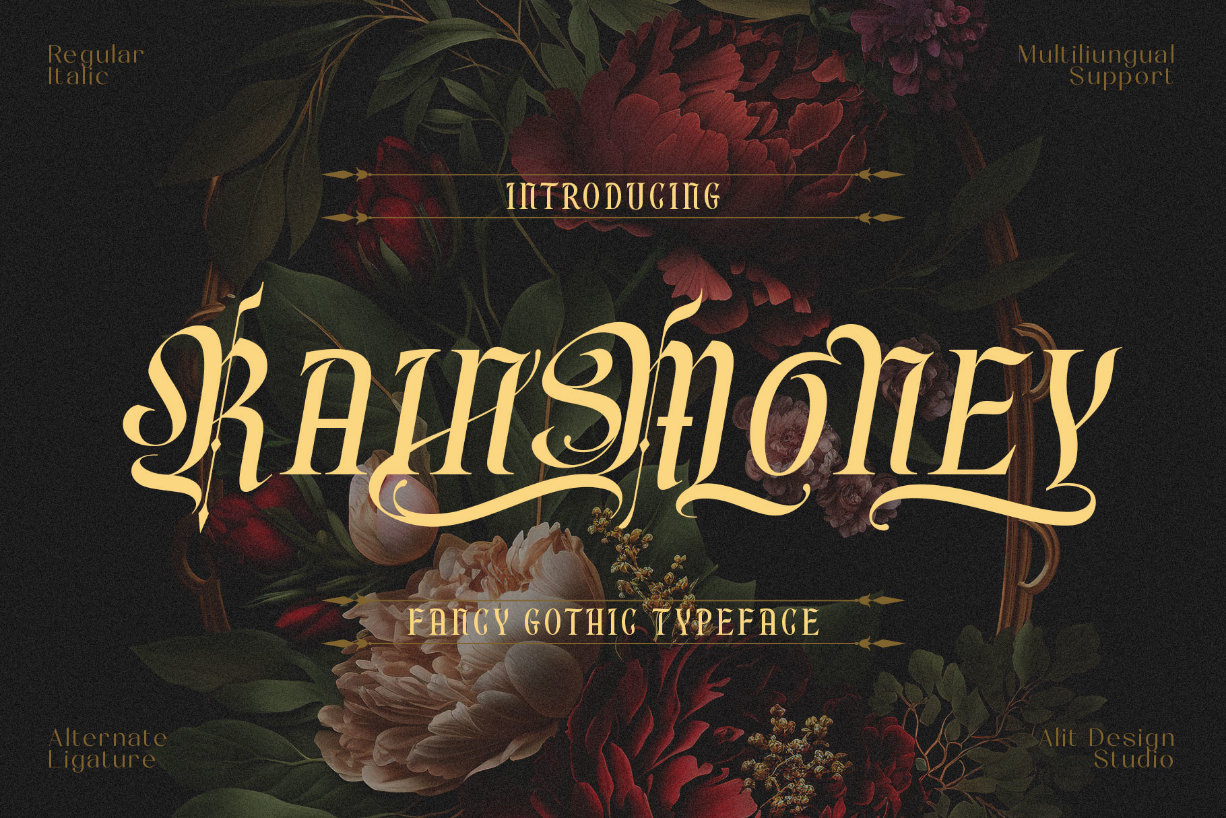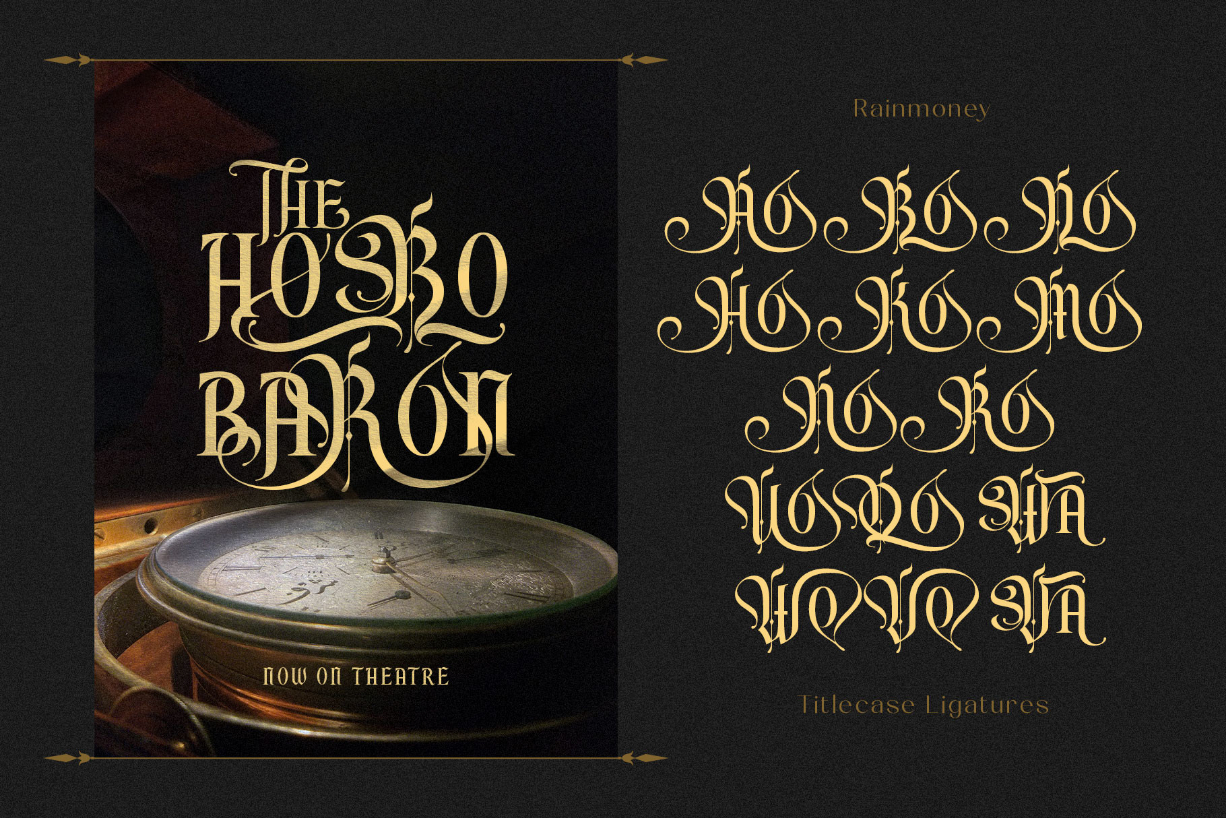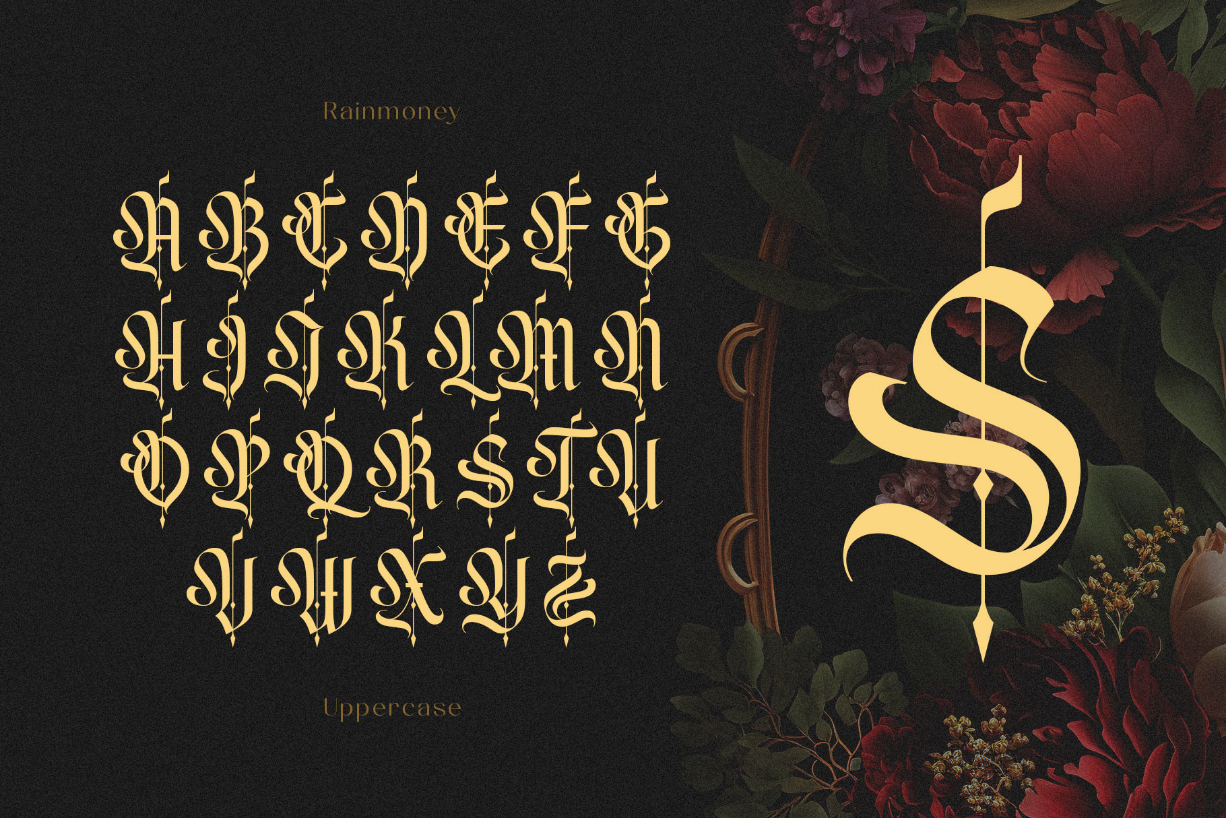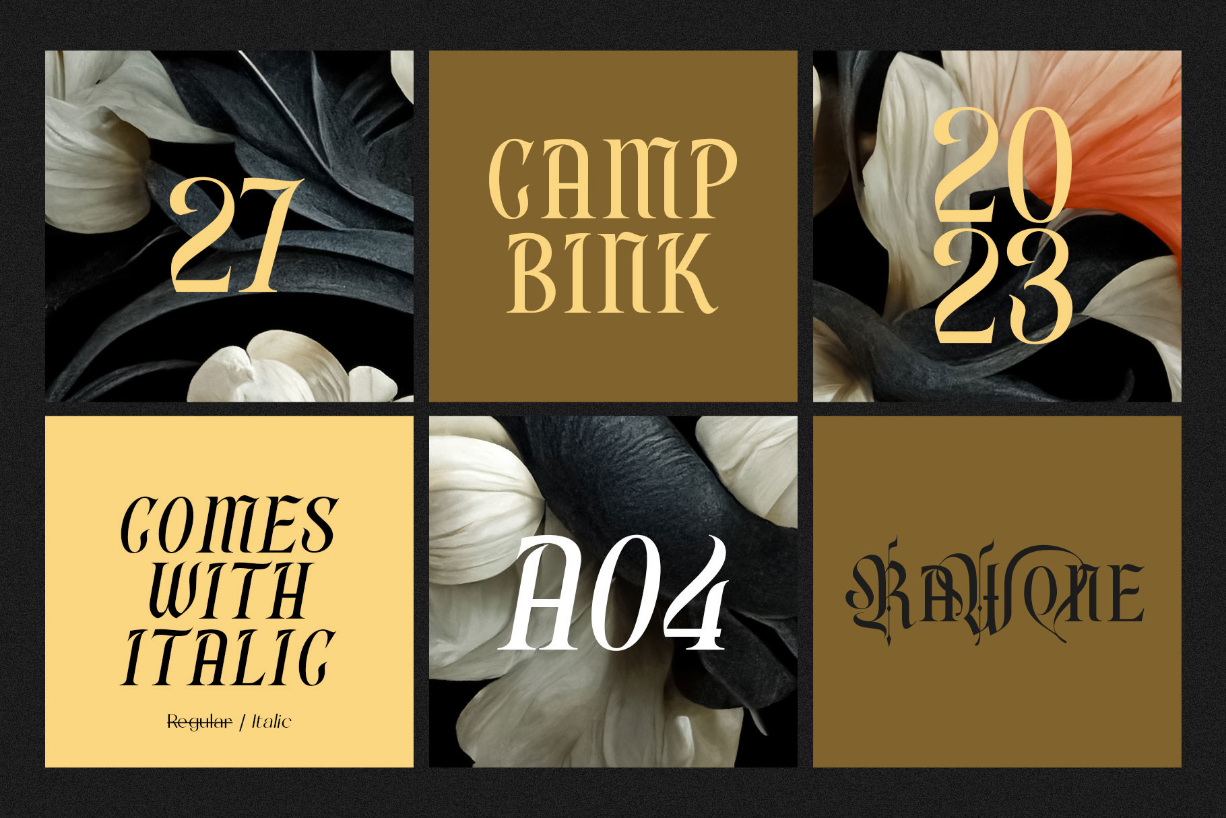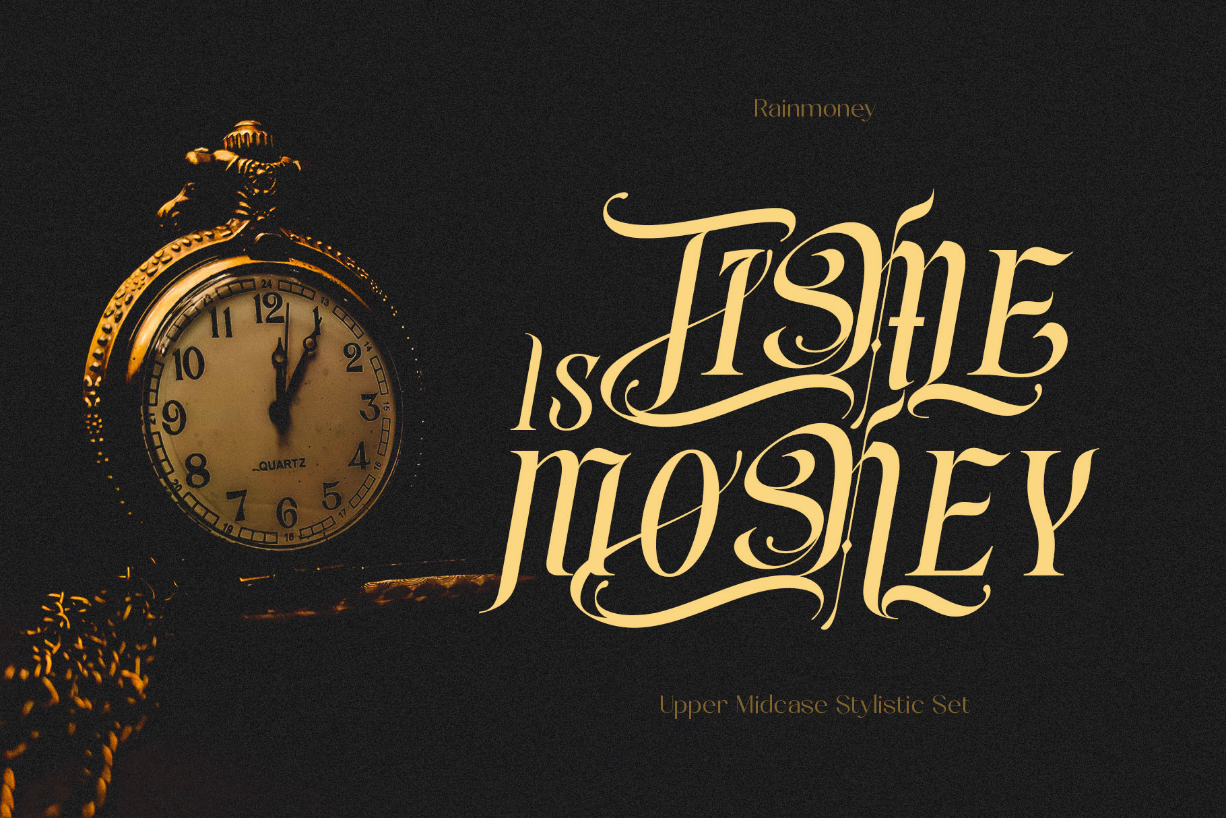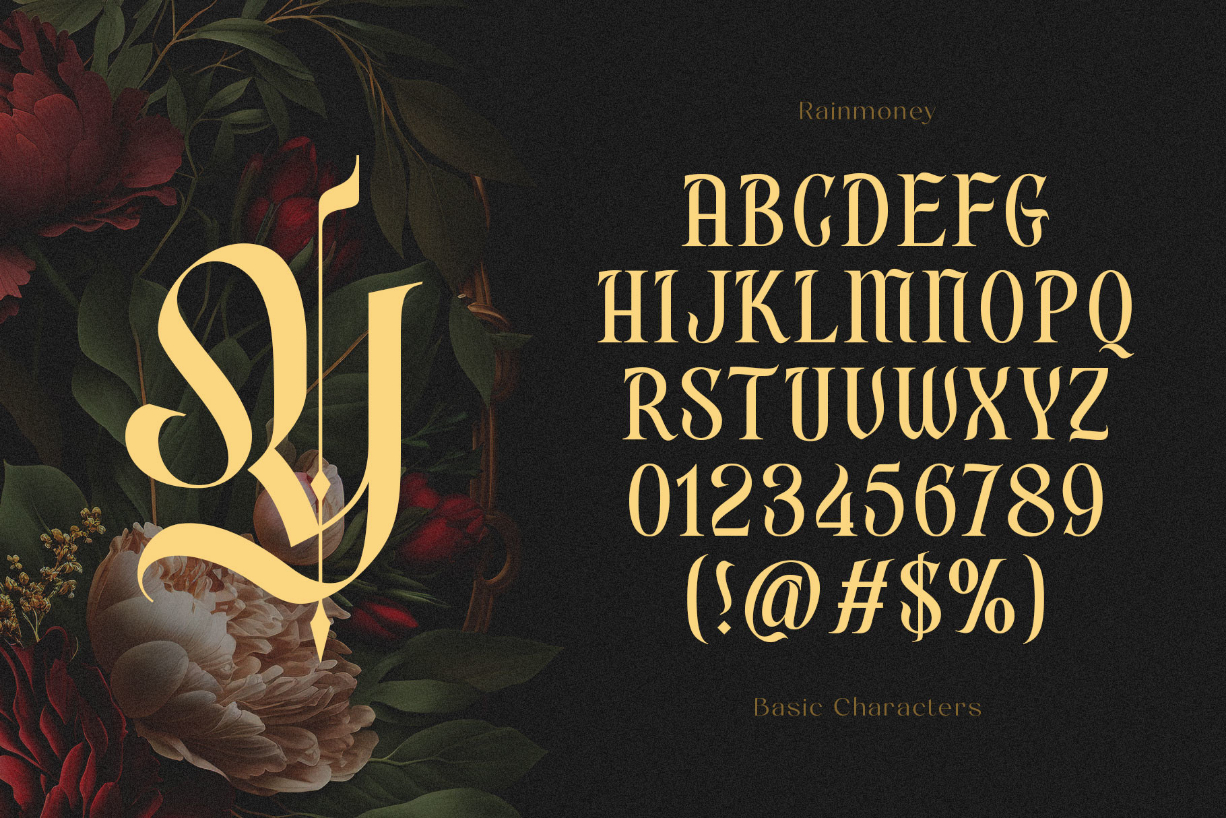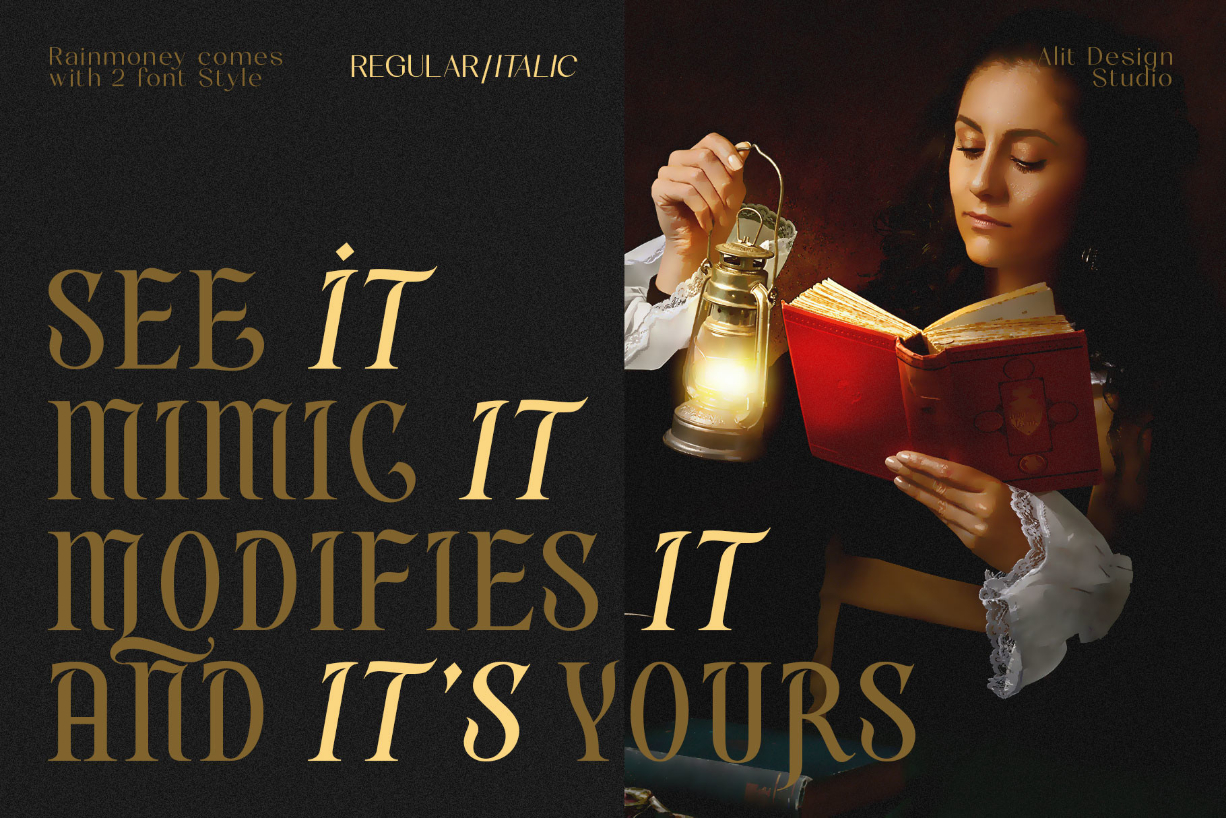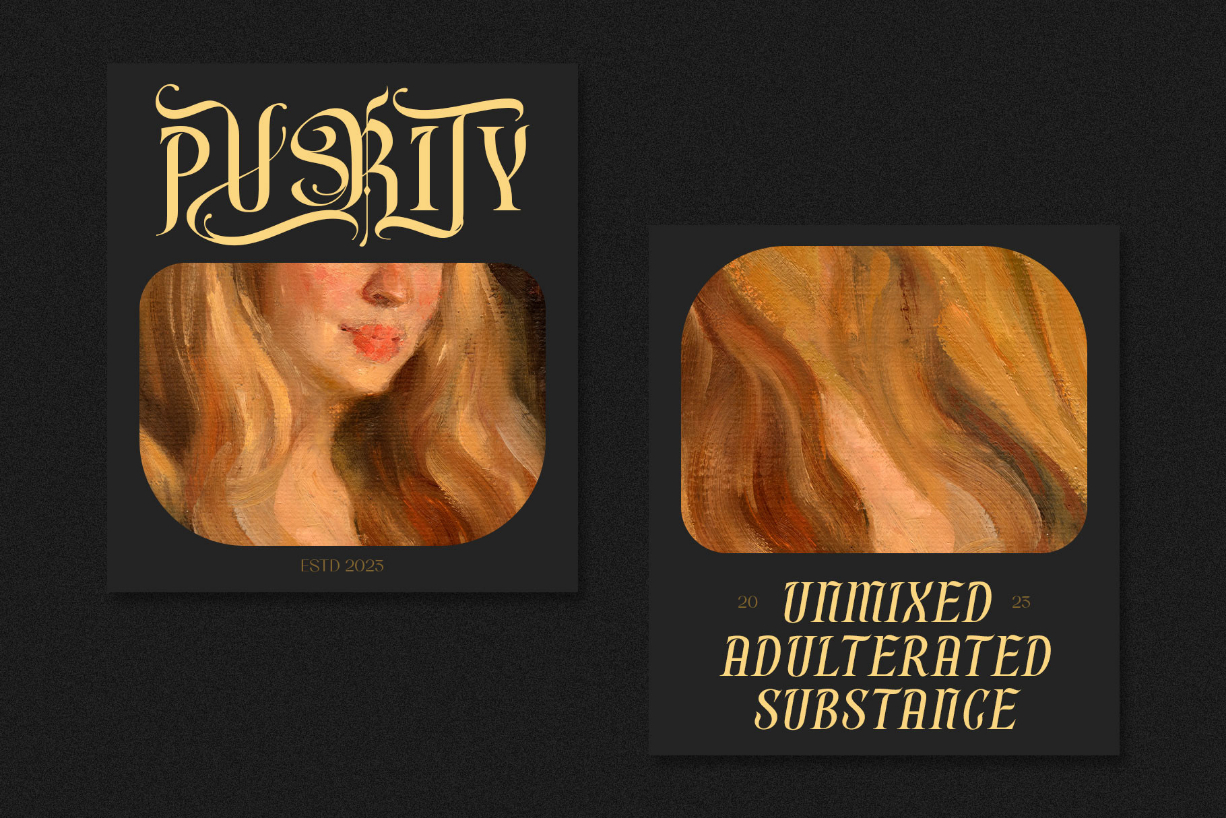
About Rain Money Font
Rain Money is a bold Gothic blackletter font with intricate details and an elegant vibe. The sharp angles and dramatic curves make a powerful statement, while the ornate design adds a touch of luxury. Perfect for creating an impressive and sophisticated look for any design project.